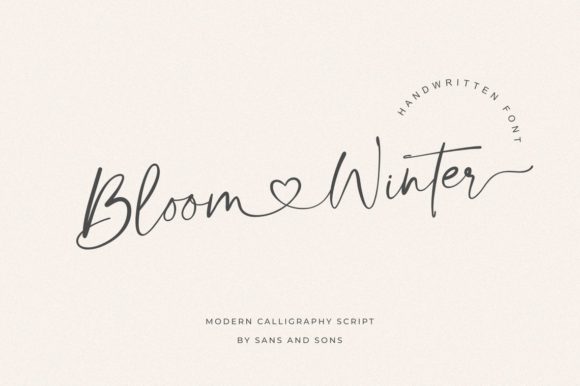
Introducing Bloom Winter Font, the ultimate choice for all your creative ventures! Crafted with utmost care by the talented team at SansAndSons, this exquisite handwritten font is sure to captivate your senses and elevate your designs to new heights.
With its delicate and elegant script, Bloom Winter Font adds a touch of sophistication to any project. Whether you're designing invitations, creating stunning artwork, or crafting personalized gifts, this font is a must-have for all creative enthusiasts.
One of the standout features of Bloom Winter Font is its distinct and well-rounded letters that effortlessly flow together, creating a harmonious and graceful aesthetic. Each stroke is meticulously crafted, giving your designs a unique and artistic touch that is bound to leave a lasting impression.
But that's not all! Bloom Winter Font is PUA encoded, allowing you to effortlessly access all the glyphs and swashes that come with this font. Let your creativity run wild as you experiment with various letter combinations, adding a touch of flair and individuality to your projects.
Whether you're a professional designer or a hobbyist, Bloom Winter Font is the perfect companion for all your creative endeavors. Its versatility knows no bounds, making it an ideal choice for various applications. From wedding invitations and branding materials to social media graphics and art prints, this font seamlessly adapts to any design concept, bringing your vision to life.
Indulge your senses with Bloom Winter Font's captivating charm and watch as your designs come alive with its elegant strokes and intricate details. Let this font be your creative muse, inspiring you to push the boundaries of your imagination.